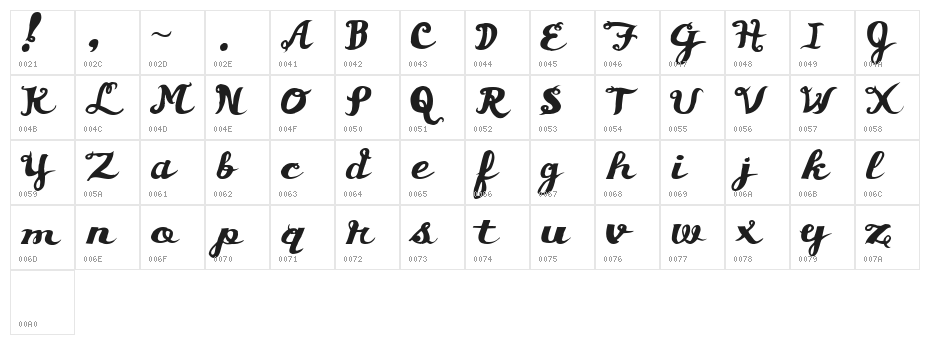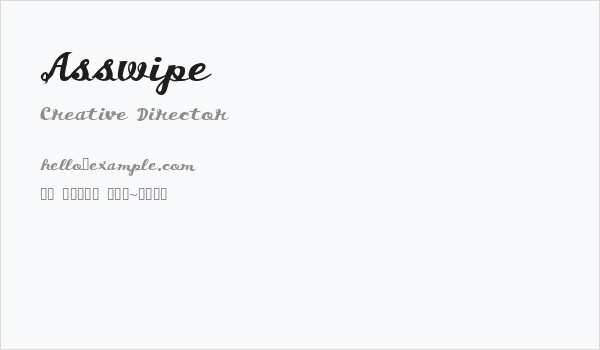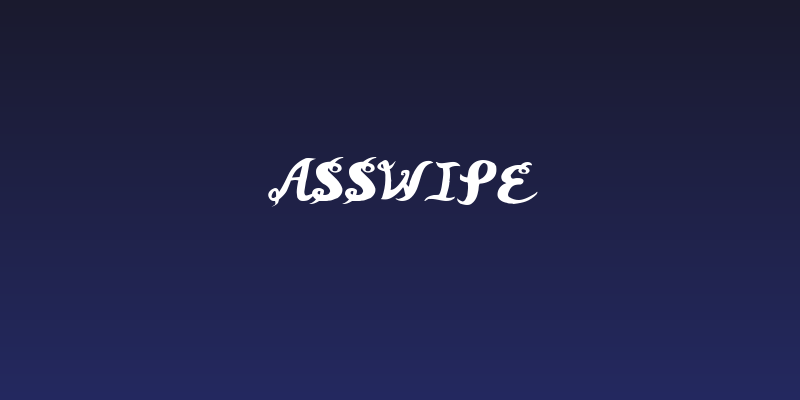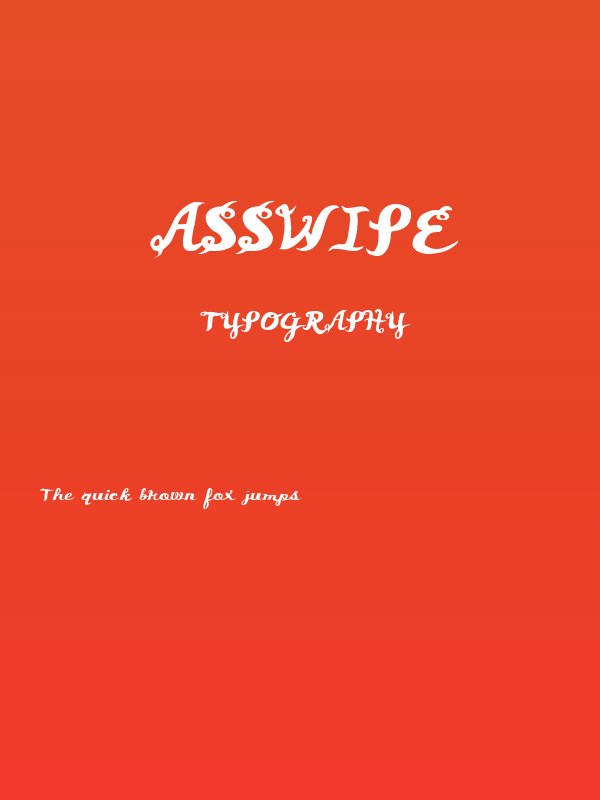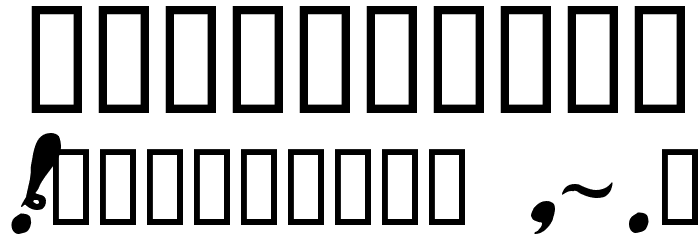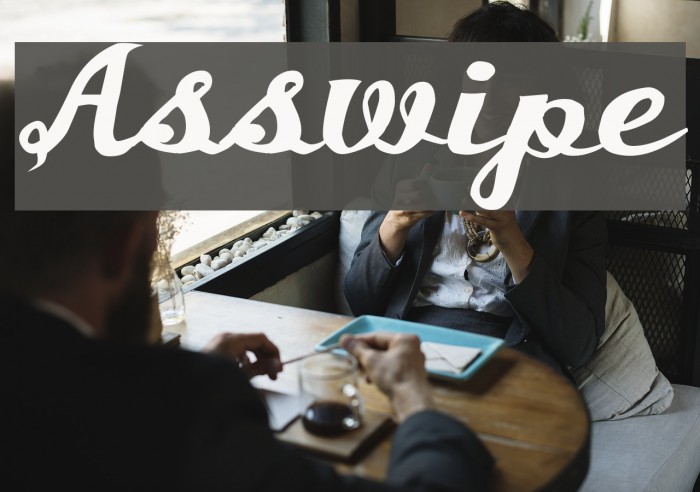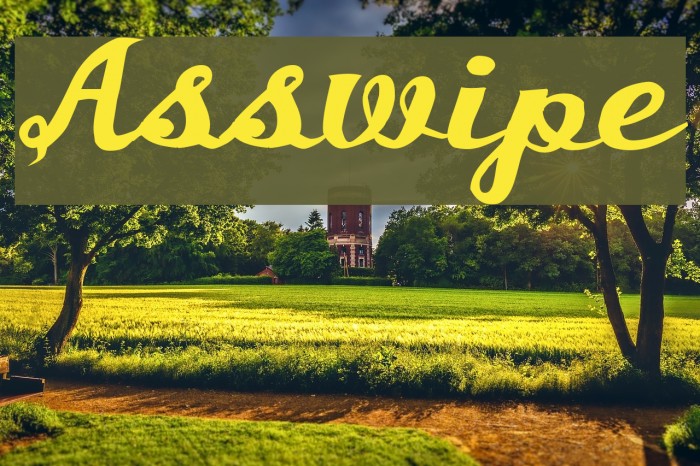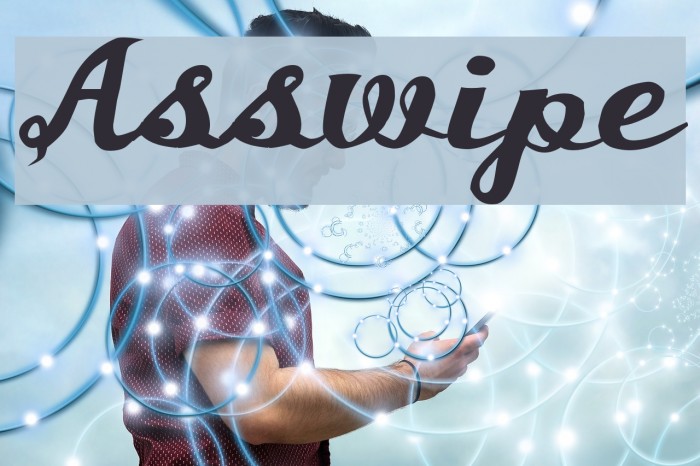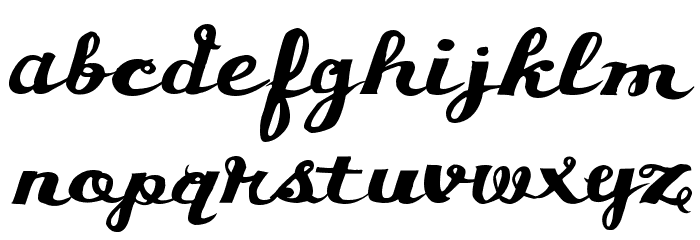
Asswipe Font
Asswipe Description
This font features an elegant and flowing script style, characterized by its ornate and decorative elements. The uppercase letters are bold and expressive, with intricate swirls and loops that add a touch of sophistication. The lowercase letters maintain a consistent flow, complementing the uppercase with their graceful curves. The font's overall appearance is reminiscent of classic calligraphy, making it suitable for projects that require a touch of elegance and tradition. The characters are well-spaced, ensuring readability while maintaining their decorative appeal.
| Categories | Decorative |
| Overall Style | Classic |
| Use Case | Logos, Invitations, Decorative headings |
| Proposed Projects | Ideal for wedding invitations, formal event programs, and luxury brand logos. |